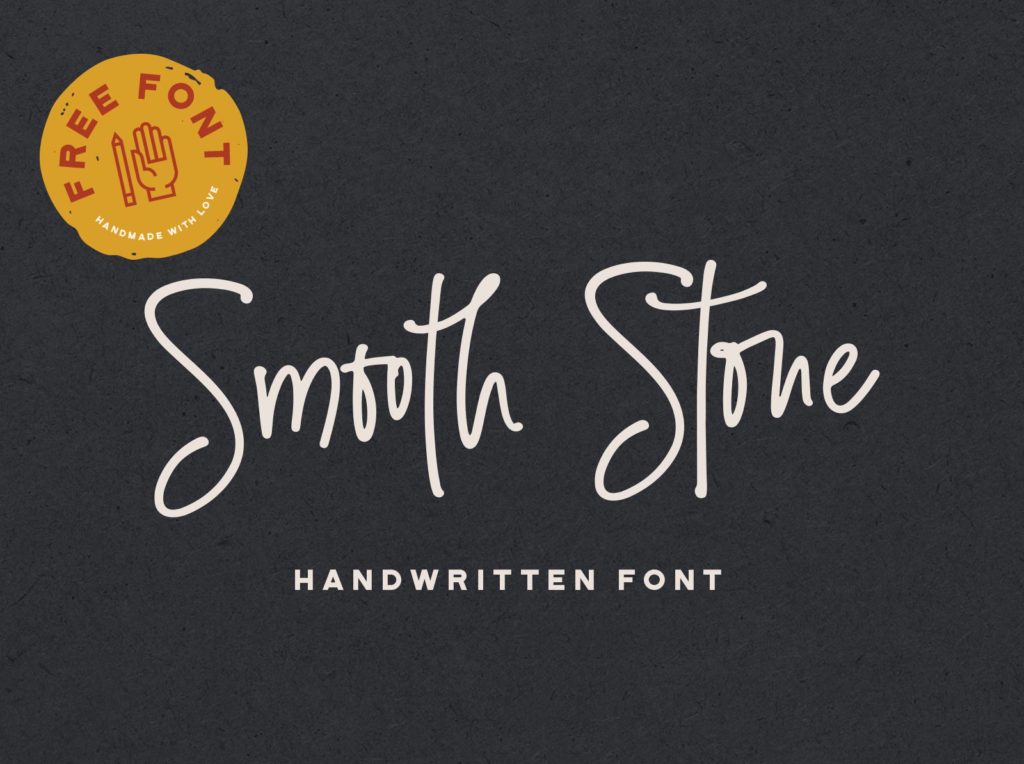
Smooth Stone – Free Handwritten Font graphicdelivery.com
Smooth Stone is a free handwritten font by Vlad Cristea. It has a smooth edge and it’s quite tall in comparison with other handwritten fonts. You will love to use it in narrow spaces in your future design projects.
Smooth Stone Free Handwritten Font